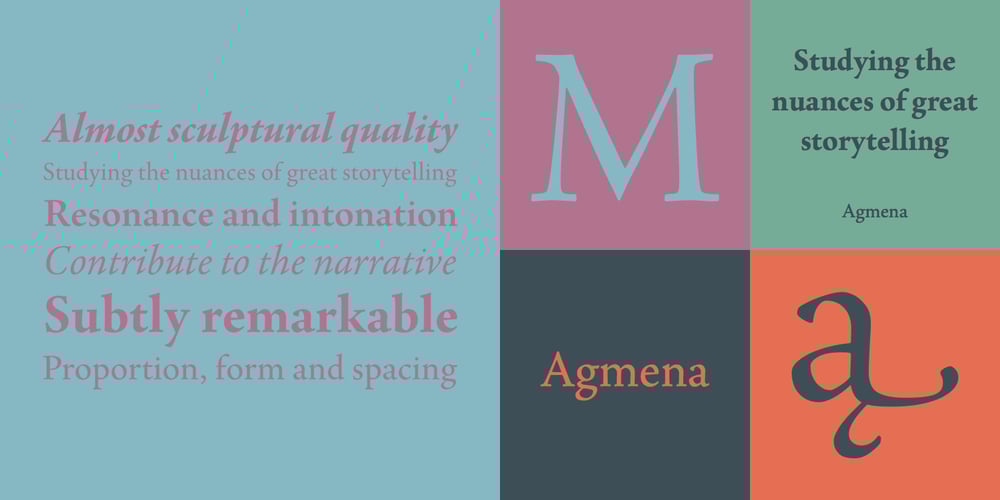
Agmena Font Family was designed by Jovica Veljovic and published by Linotype. Agmena contains 8 styles and family package options. Created by Jovica Veljović, the Agmena typeface family is a fine melding of digital technology and beautifully crafted Renaissance fonts. This typeface makes skillful use of proportion, form and spacing rather in the way that a practiced storyteller varies the timbre of his voice and deftly inserts longer pauses to bring his tale alive.